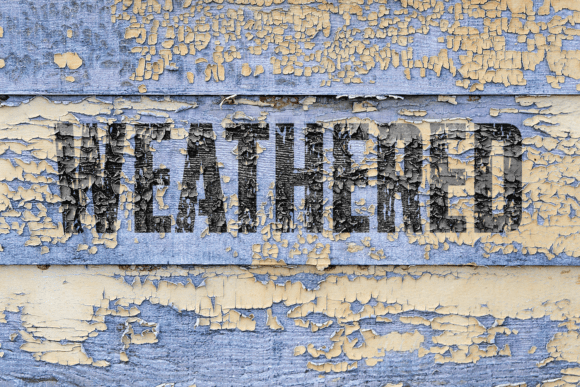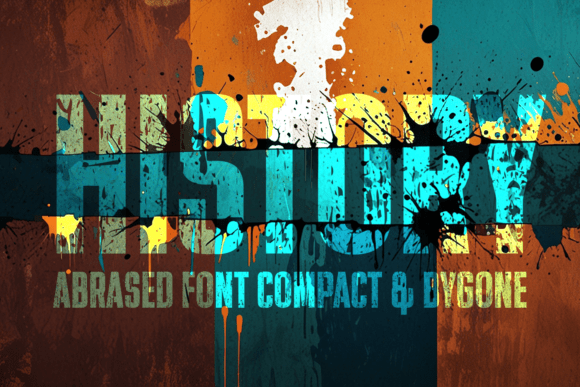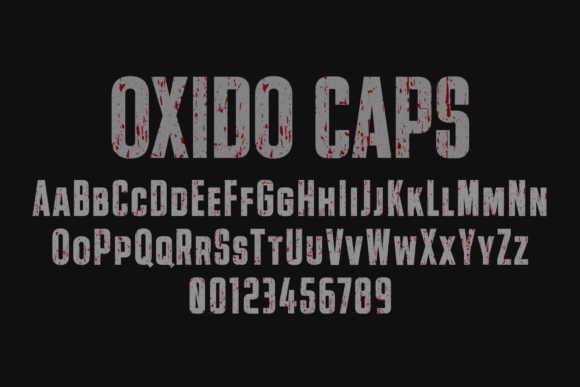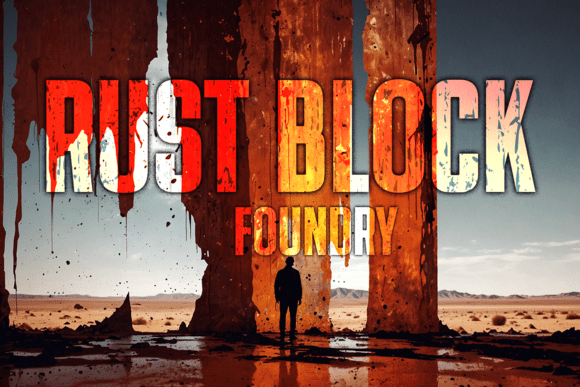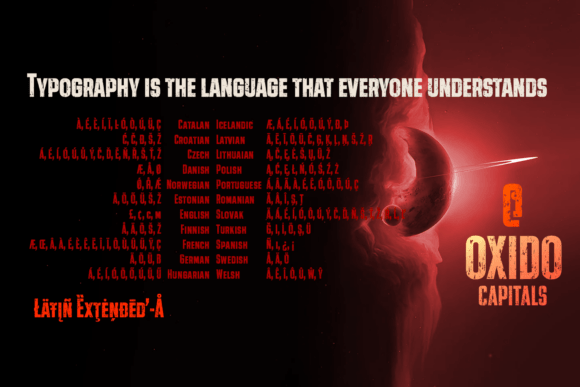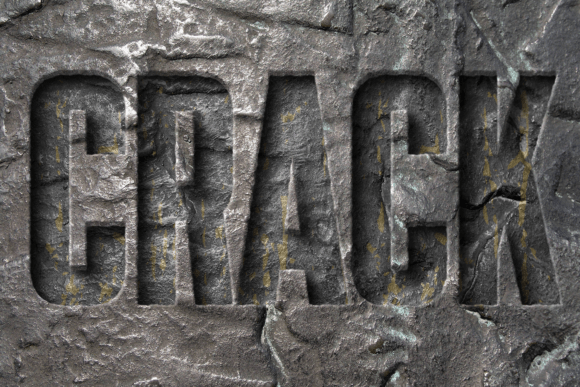
Introduction to Oxido Font
Imagine you’re brainstorming ideas for a new creative project, and you need a font that exudes a sense of industrial toughness and authenticity. You want something that’s not only visually striking but also conveys a message of resilience and timelessness. That’s where Oxido Font comes in – a game-changing design resource that will elevate your creative project to the next level.
Developed with precision and care, Oxido Font is more than just a typeface – it’s a visual testament to the passage of time. With its unique layered system, you can create titles in two or more colors, generating a typographic effect of depth and drama that’s simply breathtaking. Whether you’re working on a high-quality design project or need a reliable free download, Oxido Font is an excellent choice for designers looking to add an extra layer of sophistication to their work.
- Designed with a unique, modern aesthetic, perfect for adding a touch of sophistication to your design projects.
Honest Review: Oxido Font
Oxido Font has been a game-changer for my design projects. As a designer, I’m always on the lookout for high-quality fonts that can elevate my creative projects and Oxido Font definitely delivers. It’s a free download, which is a huge plus, making it an accessible design resource for anyone.
- ✨ The Oxido Font has a transparent background, which allows for seamless integration into any design.
- ✨ The font’s sleek and modern design makes it perfect for a wide range of creative projects, from graphic design to digital art.
However, I did encounter a few limitations with the Oxido Font. The font’s availability in only a few weights can be restrictive for some projects.
- ⚠️ Limited font weights may require additional font downloads to achieve the desired look.
- ⚠️ Some users may experience compatibility issues with older software or operating systems.
Overall, I’m thoroughly impressed with Oxido Font. Its high-quality design and transparent background make it an excellent addition to any design toolkit. While there are some limitations, the benefits far outweigh the drawbacks, making it a valuable design resource for any creative project.
Oxido Font
The Oxido Font is a high-quality design resource perfect for creative projects. It’s available for free download and features a transparent background, making it easy to use in various design applications.
Tips for Getting the Most Out of Oxido Font
For the best results, use Oxido Font in conjunction with other high-quality design elements. Experiment with different font sizes, colors, and styles to create a unique and visually appealing design.
Oxido Font is perfect for a variety of creative projects, including logos, branding materials, and marketing materials. It’s also great for use in presentations, documents, and social media graphics.